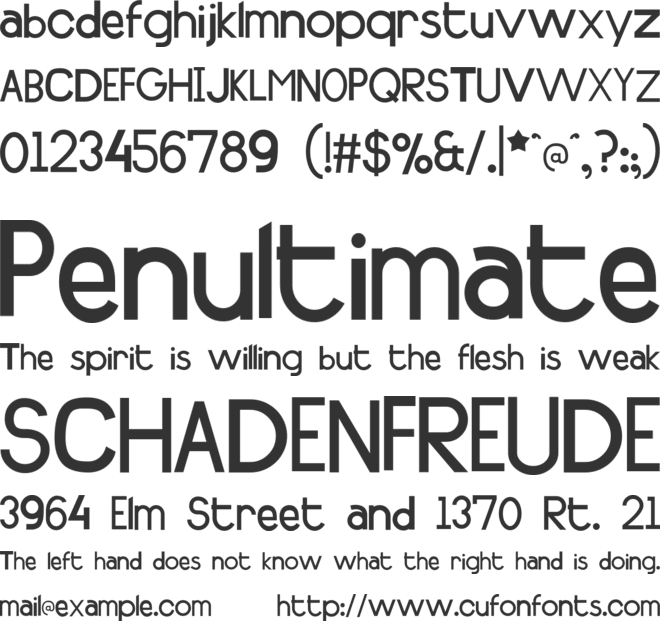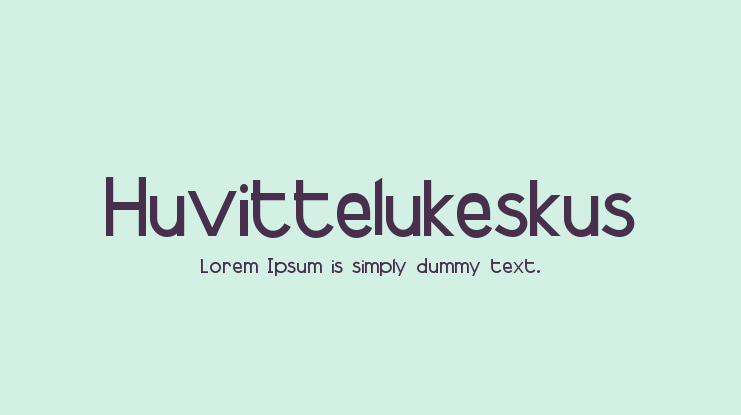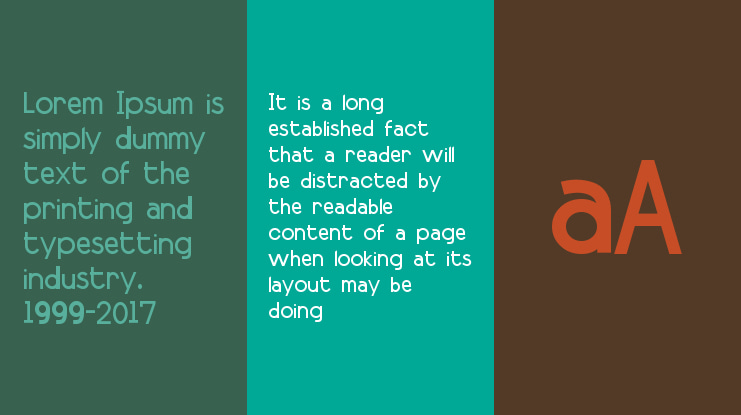
Huvittelukeskus Font
Heaven Castro
This is my first Japanese font.
Huvittelukeskus(Finnish for playground) is a new pop gothic font based on the 2010-2014 Nelonen logo and inspired by the neat childish hand-lettering. While Latin, Kana and some Kanji are original, it borrows glyphs form Kosugi and Raleway.